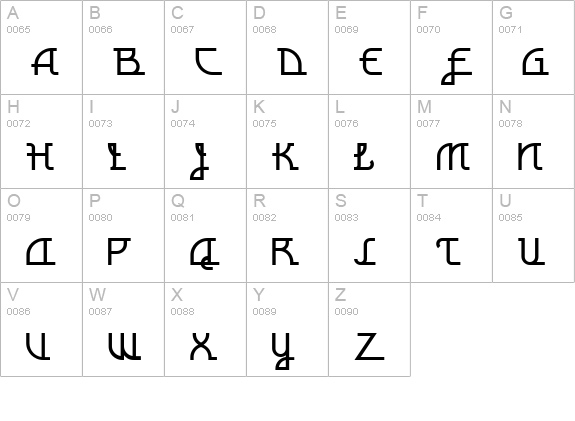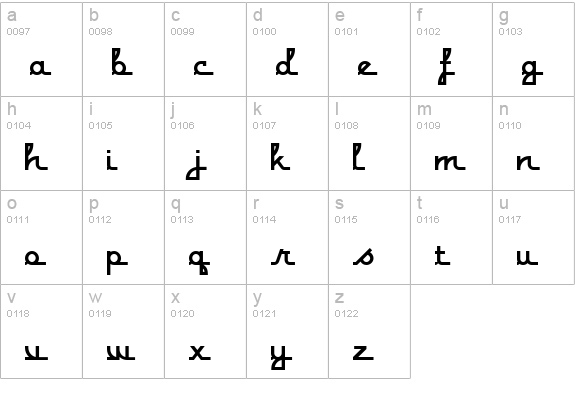
Monterey Popsicle NF Font Details
Monterey Popsicle NF font is a whimsical and playful typeface that exudes a sense of fun and creativity. Its charming hand-drawn style brings a touch of warmth and nostalgia to any design project. With its unique, irregular letter shapes and quirky details, Monterey Popsicle NF is perfect for adding a touch of personality to invitations, posters, and other creative projects. What sets Monterey Popsicle NF apart is that it is available for free download at FontsMarket.com. This means that you can easily access this delightful font to enhance your designs without any cost. Whether you're working on a personal project or a professional assignment, Monterey Popsicle NF offers a refreshing and unique typographic solution that is sure to make your work stand out. Download Monterey Popsicle NF today and let your creativity soar with this free and charming font!